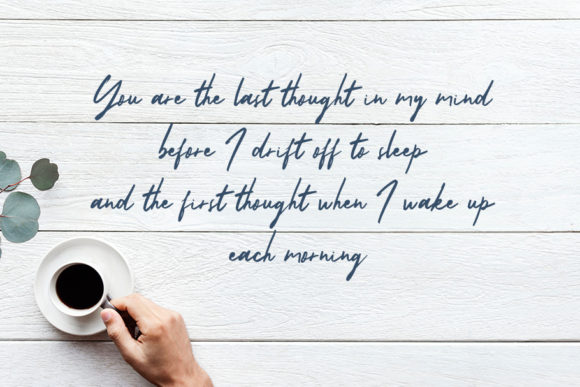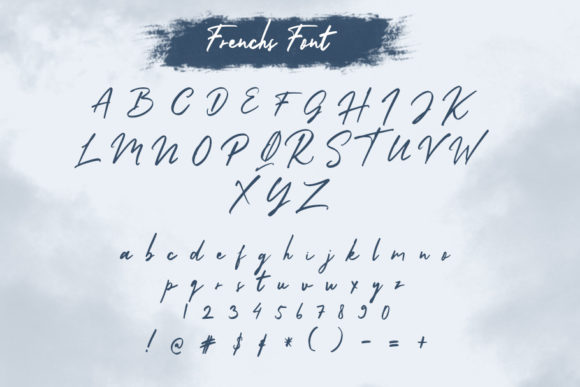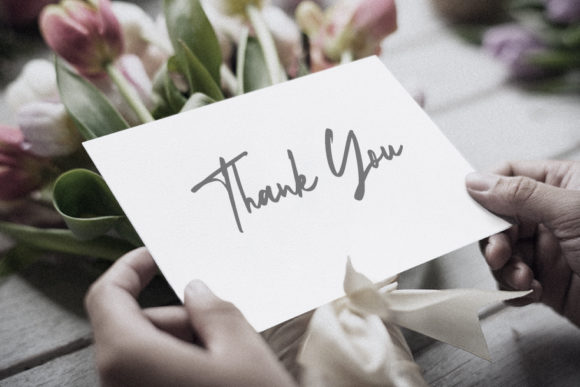
Introducing Frenchs Font: A Timeless Handwritten Elegance
In the realm of typography, few fonts capture the essence of elegance and sophistication as beautifully as Frenchs. This incredibly distinct, delicate, and timeless handwritten font has been making waves in the design community, and for good reason. Frenchs is the perfect addition to any project that requires a touch of personal warmth and classic charm, making it a favorite among designers and crafters alike.
The Characteristics of Frenchs Font
Frenchs is characterized by its delicate strokes, fluid connections, and a subtle elegance that sets it apart from more contemporary fonts. Its handwritten nature gives it a personal and intimate feel, making it ideal for projects where a human touch is desired. The font’s timeless quality ensures that it remains versatile and adaptable across various design applications, from traditional wedding invitations to modern branding and advertising.
Ideal Applications for Frenchs Font
One of the standout features of Frenchs is its versatility. This font looks stunning on a variety of design materials, including:
- Wedding Invitations: Add a touch of romance and sophistication to your wedding stationery with Frenchs.
- Thank You Cards: Express gratitude with elegance and warmth.
- Quotes: Give your inspirational quotes a beautiful, artistic backdrop.
- Greeting Cards: Whether it’s a birthday, anniversary, or holiday, Frenchs adds a personal touch.
- Logos: Elevate your brand with a logo that exudes elegance and refinement.
- Business Cards: Stand out in the professional world with a card that combines professionalism with a hint of personality.
Why Designers and Crafters Love Frenchs
Designers and crafters appreciate Frenchs for several reasons:
- Ease of Use: Despite its elegant appearance, Frenchs is surprisingly easy to read and work with, making it accessible for a wide range of projects.
- Customization: The font’s unique characteristics allow for a high degree of customization, enabling designers to tailor the font to fit their project’s specific needs.
- Emotional Connection: Frenchs helps create an emotional connection with the audience, making designs feel more approachable and personal.
Tips for Using Frenchs Effectively
To make the most out of Frenchs, consider the following tips:
- Pair with Complementary Fonts: Combine Frenchs with clean, sans-serif fonts for contrast and visual interest.
- Adjust Line Spacing: Ensure adequate line spacing to maintain readability and flow.
- Play with Colors: While Frenchs looks beautiful in black, don’t be afraid to experiment with colors that complement your design’s overall aesthetic.
Frenchs font is a beautiful addition to any designer’s toolkit. Its unique blend of delicacy, elegance, and timelessness makes it perfect for a wide array of projects. Whether you’re working on wedding stationery, branding, or personal crafts, Frenchs offers a way to infuse your work with a touch of handwritten elegance. With its ease of use, versatility, and the emotional connection it fosters, Frenchs is sure to become a favorite in your design endeavors.